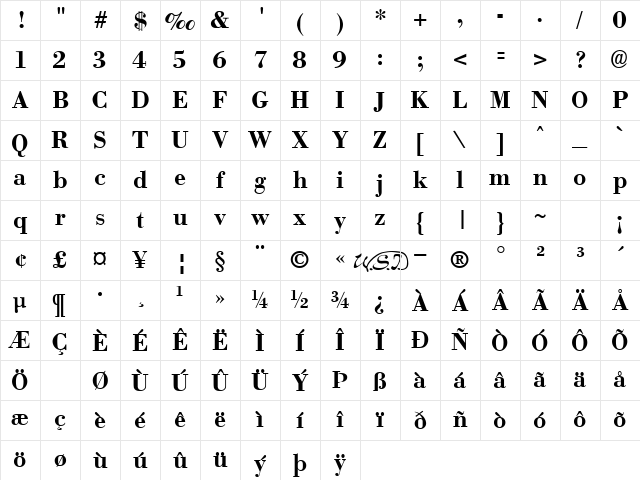
Boston fed
Style: fed
Boston Family
Boston fed
Design Context for Boston
Boston is a composed and adaptable typeface that performs quietly and consistently across a wide range of design contexts.